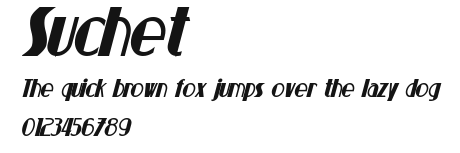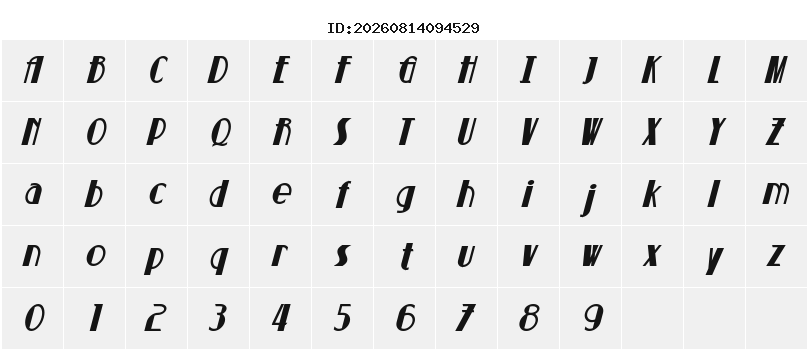
• Font Name: Suchet
• Full Font Name: Suchet Bold Italic
• Designer: Neale Davidson
• Manufacturer: Neale Davidson
About Suchet.otf
Suchet.otf is a modern, elegant sans-serif font designed for ultimate readability and visual harmony. Perfect for branding, headlines, web design, and print materials.